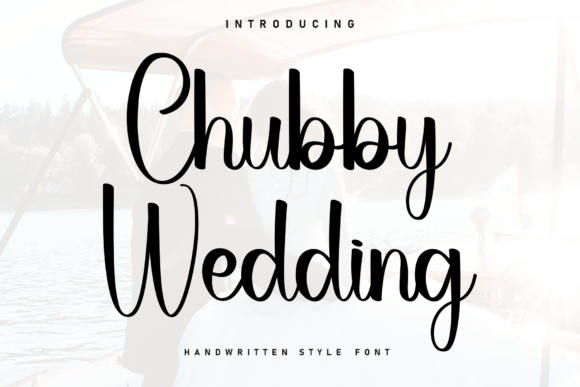
The Perfect Blend of Elegant and Casual: Chubby Wedding Font
Remember that moment when you’re brainstorming ideas for a wedding project, and suddenly, you envision the perfect combination of style and whimsy? That’s exactly what the Chubby Wedding Font aims to deliver. This charming handwritten font captures the essence of a relaxed, sporty vibe, making it a perfect fit for various design projects.
Designed to evoke a sense of luxury and elegance, yet maintain a casual feel, the Chubby Wedding Font is ideal for branding, logos, wedding supplies, greeting cards, fashion, lookbooks, and marketing promotions. Its versatility is what makes it so valuable for designers, allowing them to add a personal touch to their projects without compromising on sophistication.
Chubby Wedding Font Key Features
- Font Family: Chubby Wedding, a custom-designed script font.
- Unique Characteristics: The font features a playful, cursive script with a mix of uppercase and lowercase letters, giving it a whimsical and romantic feel.
Designer Review: Chubby Wedding Font
Overall, I found the Chubby Wedding Font to be a playful and charming addition to any wedding design project. ✨ The rounded edges and soft lines give it a whimsical feel that’s perfect for a romantic wedding theme.
- Unique aesthetic: The Chubby Wedding Font stands out from more traditional serif or sans-serif fonts, making it a great choice for couples looking for something distinctive.
- Wide character set: The font includes a wide range of characters, including accented letters and punctuation, making it easy to use in any language.
However, there are a few limitations to keep in mind: ⚠️ The font can be a bit difficult to read at smaller sizes, and it may not be suitable for formal or traditional wedding designs.
Overall, I would recommend the Chubby Wedding Font to designers looking for a fun and playful addition to their wedding design projects. While it may not be the best choice for every project, it’s a great option for couples who want to add a touch of whimsy and romance to their special day.
Q: Does the Chubby Wedding Font include any special characters or ligatures?
Yes, the Chubby Wedding Font includes a range of special characters and ligatures, including swashes, flourishes, and connecting letters. These can be accessed by using the font’s built-in features or by copying and pasting the characters from the font’s character map.